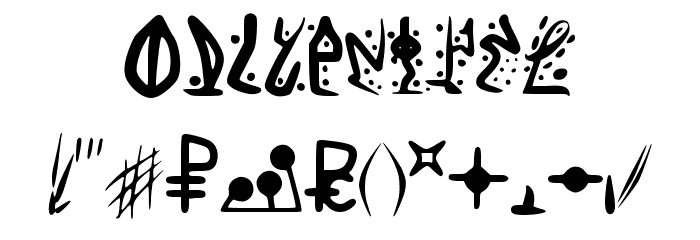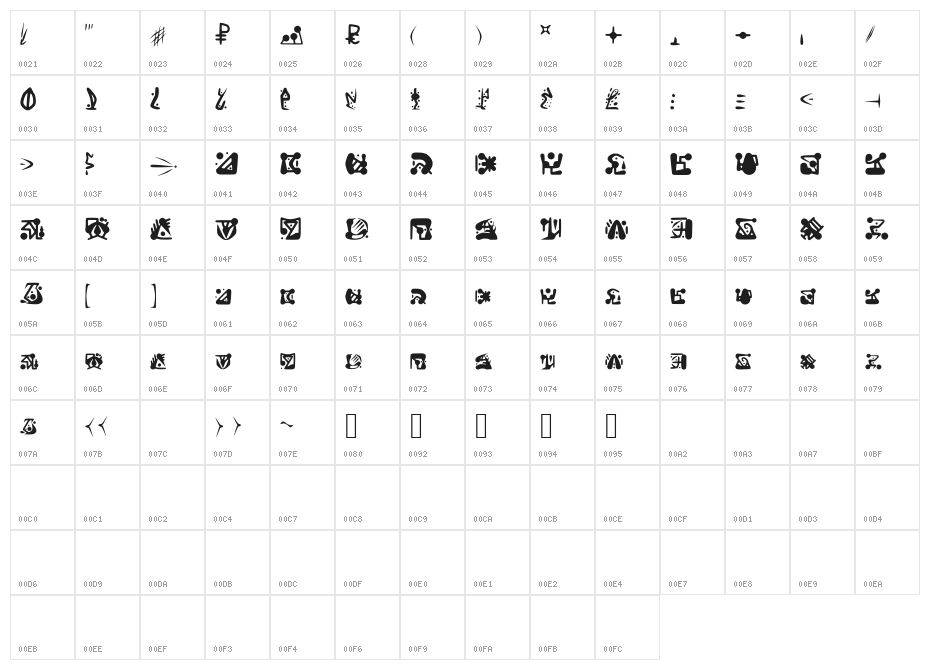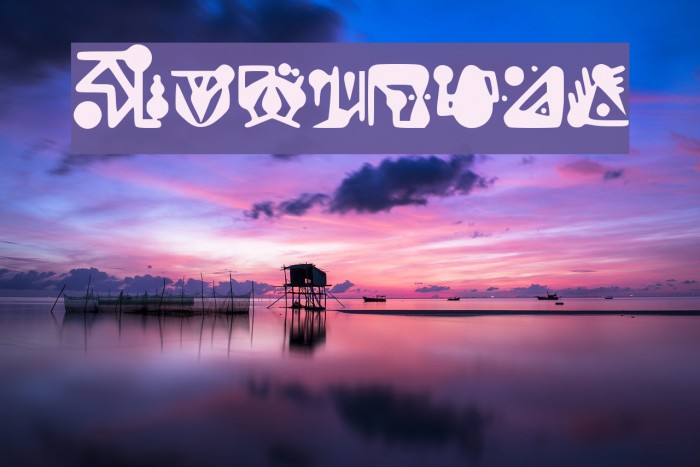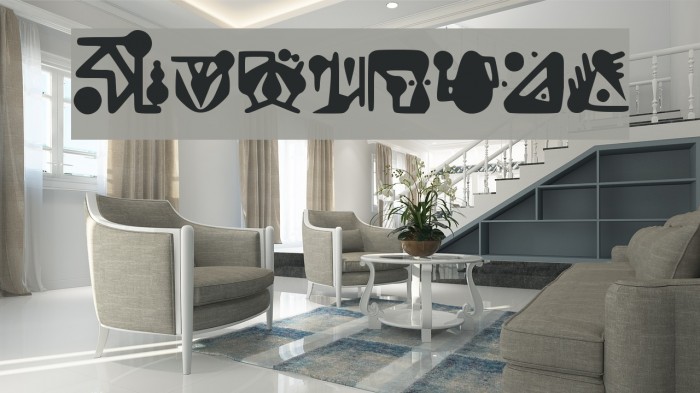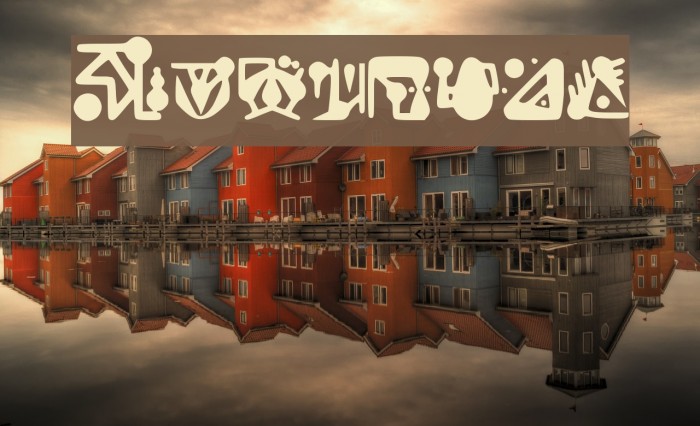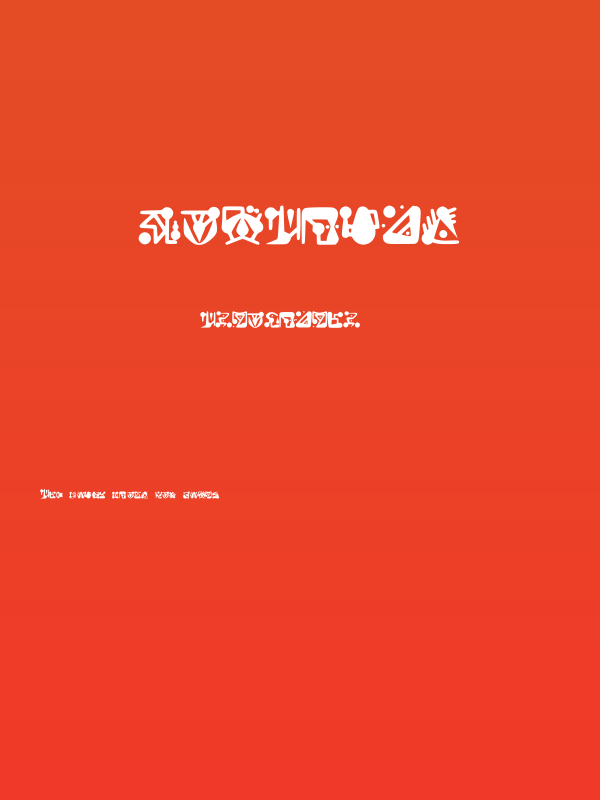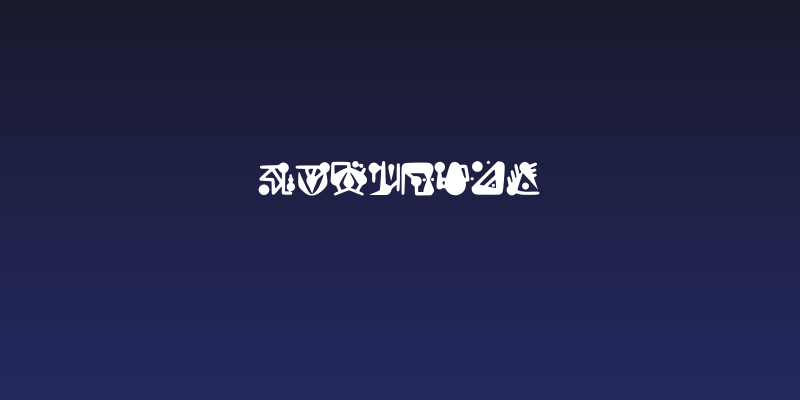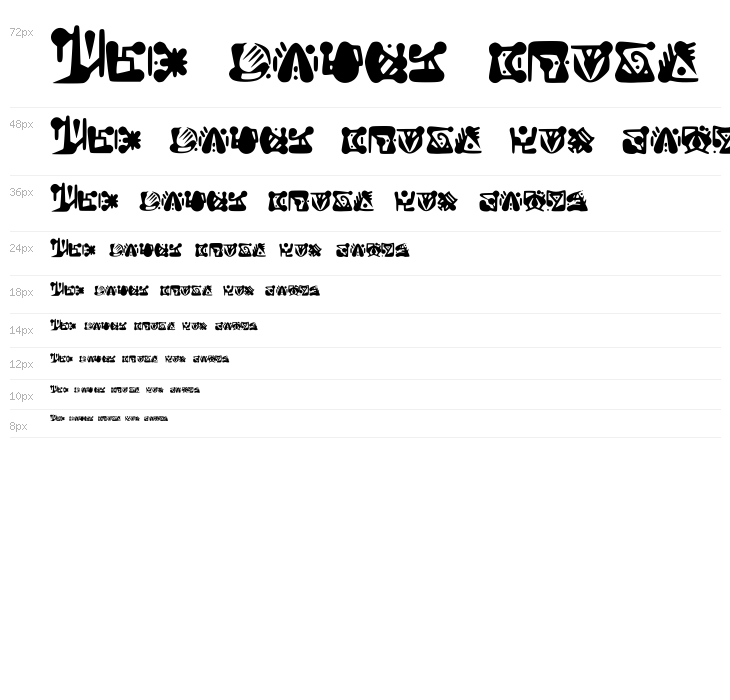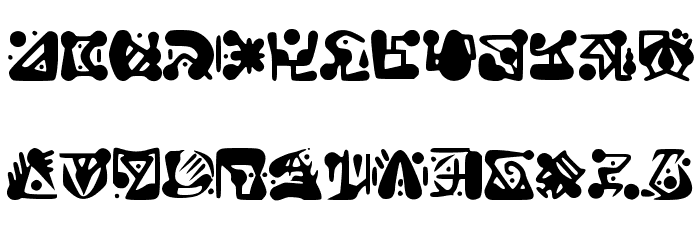
Lomtrian Font
Lomtrian Description
This font features a highly decorative and abstract design, with each character resembling a unique piece of art. The characters are composed of bold, irregular shapes and intricate patterns, creating a sense of movement and complexity. The style is reminiscent of tribal or ancient symbols, with a modern twist. The font is not easily readable, making it more suitable for artistic or decorative purposes rather than for body text. Its unique appearance can add a distinctive touch to creative projects.
| Use Case | Logos, Posters, Artistic designs |
| Proposed Projects | Ideal for artistic designs, posters, album covers, or any project requiring a unique, decorative touch. |